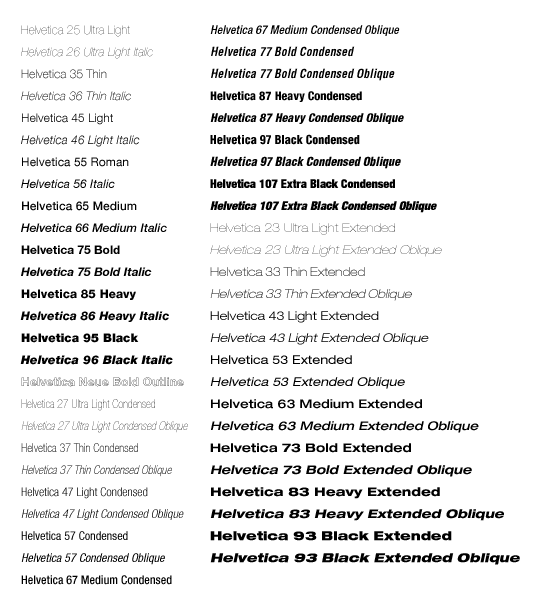
Neue Helvetica Complete Family Pack (Monotype)
Helvetica is a widely used sans-serif typeface developed in 1957 by Swiss typeface designer Max Miedinger and Eduard Hoffmann at the Haas type foundry in Switzerland. Originally called Die Neue Haas Grotesk, it was created based on Schelter-Grotesk and the goal of the new design was to create a neutral typeface that had great clarity, could be used on a wide variety of signage, and could compete with Berthold's highly successful typeface design: Akzidenz Grotesk in the Swiss market. In 1960, the typeface name, Neue Haas Grotesk was changed by Hass's parent company Stempel to Helvetica (Latin for Swiss) in an effort to make the design more marketable internationally. Today, Helvetica® is a trademark of Linotype GmbH and is among the most recognized, used, and important typefaces in the world. Versions are available in many different languages such as Cyrillic, Hebrew, Greek, Japanese, Hindi and Vietnamese. It is a popular choice for commercial word marks such as AT&T, BMW, Microsoft and many others. Linotype GmbH is a Monotype Imaging company. Helvetica has regularly ranked among FontHaus's top selling sans serif and corporate fonts since 1990.Monotype Imaging Inc. - END USER LICENSE AGREEMENT